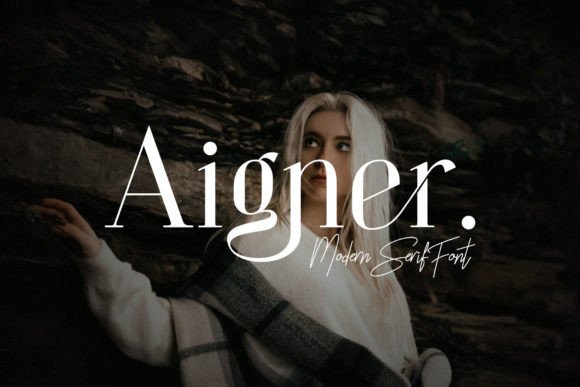
Aigner Font: Elevate Your Creative Projects with Style and Sophistication
In the world of typography, a font can make all the difference in the success of a creative project. A well-designed font can elevate your work, convey your message more effectively, and leave a lasting impression on your audience. One such font that has gained popularity among designers and creatives is the Aigner Font. In this article, we’ll explore the features, benefits, and uses of the Aigner Font, and why it’s becoming a favorite among designers and creatives.
What is Aigner Font?
Aigner Font is a stylish and fashionable serif font that has been masterfully designed to bring a touch of elegance and sophistication to any creative project. Its classic design, combined with modern twists, makes it a versatile font that can be used for a wide range of applications, from luxury branding to editorial design.
The Aigner Font features beautiful serifs, elegant lines, and a distinctive character that sets it apart from other fonts. Its unique design makes it perfect for use in high-end branding, advertising, and editorial design, where a touch of sophistication and elegance is required.
Key Features of Aigner Font
- Serif Design: Aigner Font features a classic serif design, with beautiful serifs that add a touch of elegance and sophistication to any text.
- Elegant Lines: The font features elegant lines, carefully crafted to create a distinctive and refined look.
- Versatile: Aigner Font is a versatile font that can be used for a wide range of applications, from luxury branding to editorial design.
- High-Quality: The font is designed to deliver high-quality results, even at small sizes.
Benefits of Using Aigner Font
So, why should you choose Aigner Font for your creative projects? Here are some benefits of using this stylish and fashionable serif font:
- Elegance and Sophistication: Aigner Font adds a touch of elegance and sophistication to any text, making it perfect for high-end branding, advertising, and editorial design.
- Versatility: The font is versatile and can be used for a wide range of applications, from luxury branding to editorial design.
- Unique Character: Aigner Font has a distinctive character that sets it apart from other fonts, making it perfect for designers and creatives looking for a unique look.
- Easy to Read: The font is designed to be easy to read, even at small sizes, making it perfect for body text and headlines.
Examples of Aigner Font in Use
Aigner Font is a versatile font that can be used for a wide range of applications. Here are some examples of how you can use this stylish and fashionable serif font:
- Luxury Branding: Use Aigner Font to create luxurious and sophisticated brand identities that exude elegance and refinement.
- Editorial Design: The font is perfect for use in editorial design, including magazines, newspapers, and books.
- Advertising: Aigner Font can be used to create eye-catching and effective advertisements that grab attention and leave a lasting impression.
- Packaging Design: The font can be used for packaging design, including labels, packaging, and point-of-sale displays.
Tips for Using Aigner Font
Here are some tips for using Aigner Font effectively in your creative projects:
- Use it for Headlines and Titles: Aigner Font is perfect for use in headlines and titles, where a touch of elegance and sophistication is required.
- Pair it with Other Fonts: The font can be paired with other fonts to create a unique and visually appealing typography.
- Experiment with Font Sizes: Aigner Font can be used at a range of font sizes, from small body text to large headlines.
- Pay Attention to Kerning and Leading: Make sure to pay attention to kerning and leading to ensure that your text is easy to read and visually appealing.
In conclusion, Aigner Font is a stylish and fashionable serif font that is perfect for designers and creatives looking to add a touch of elegance and sophistication to their work. With its classic design, elegant lines, and versatile nature, Aigner Font is a font that can be used for a wide range of applications, from luxury branding to editorial design. Whether you’re looking to create a luxurious brand identity, design an eye-catching advertisement, or simply add a touch of sophistication to your creative project, Aigner Font is a great choice.